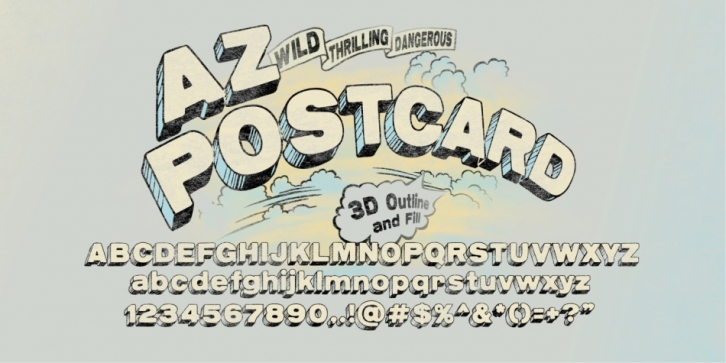
AZ Postcard is a display sans font family. This typeface has two styles and was published by Artist of Design.
AZ Postcard was inspired from a need to develop a san serif 3D typeface with a vintage hand drawn feel to it.
This font was designed for use as a fun bold headline or sub headline.